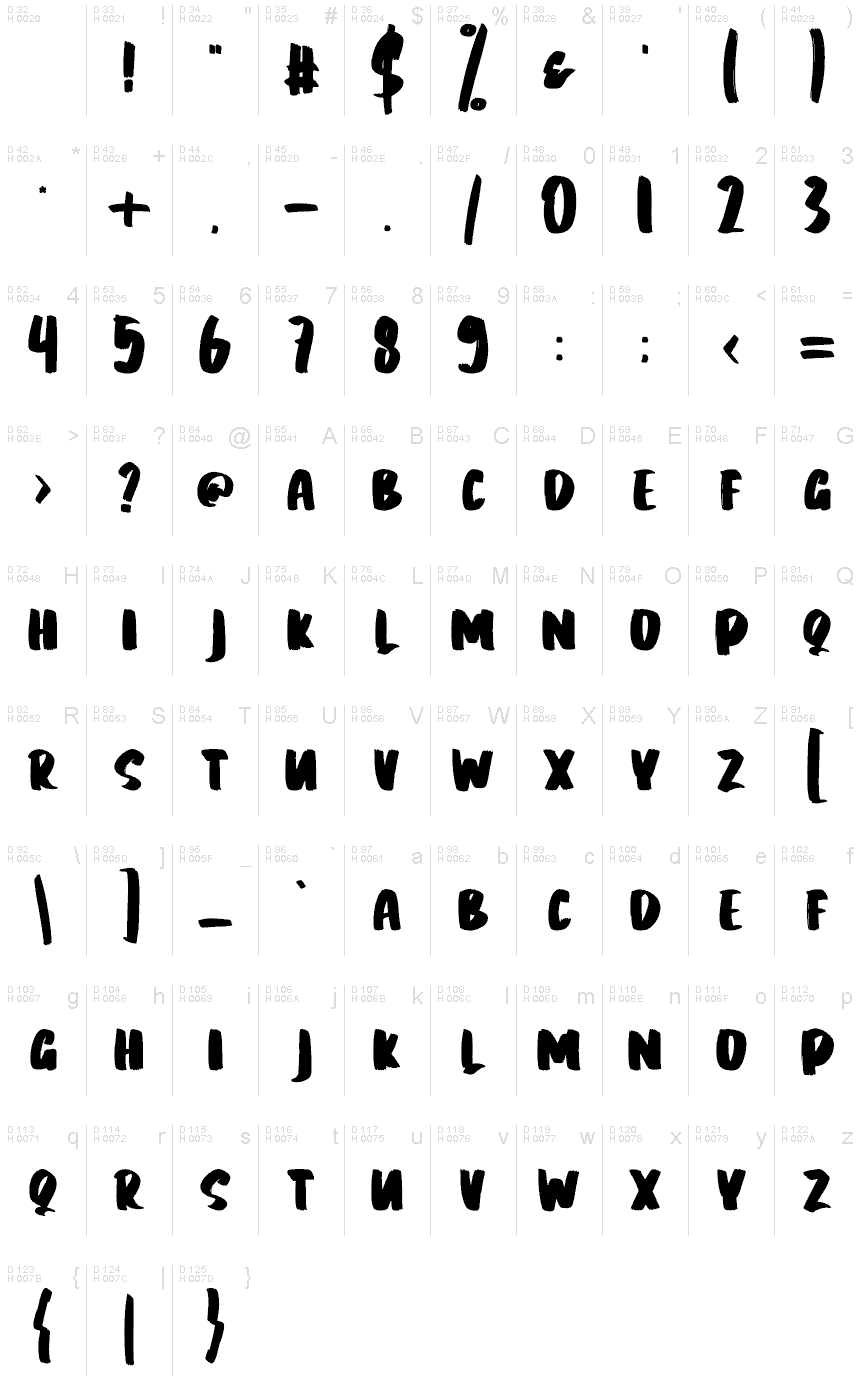
Marrie
Marrie font by Skiiller Studio is a bold and expressive brush font that captures the energetic feel of retro-inspired typography. Condensed in width, its dynamic strokes create a visually striking appearance suitable for modern applications. The font's robust personality is perfect for making statements in projects where flair and creativity are essential.
This free handwritten font can bring vigor to posters, branding materials, advertising campaigns, social media graphics, event invitations, book covers, packaging designs, website headers, editorial layouts, and T-shirt prints. Its versatility makes it particularity serviceable to artists aiming to infuse their work with a contemporary yet nostalgic edge.